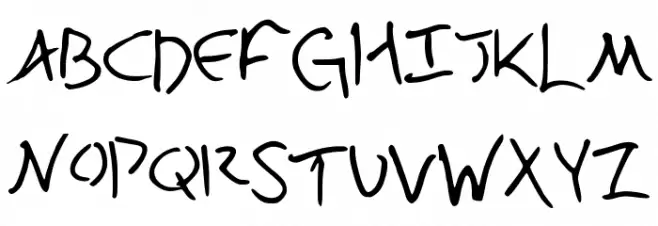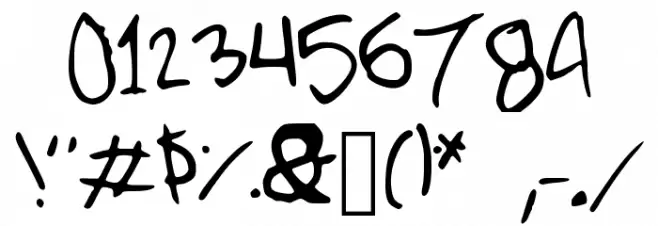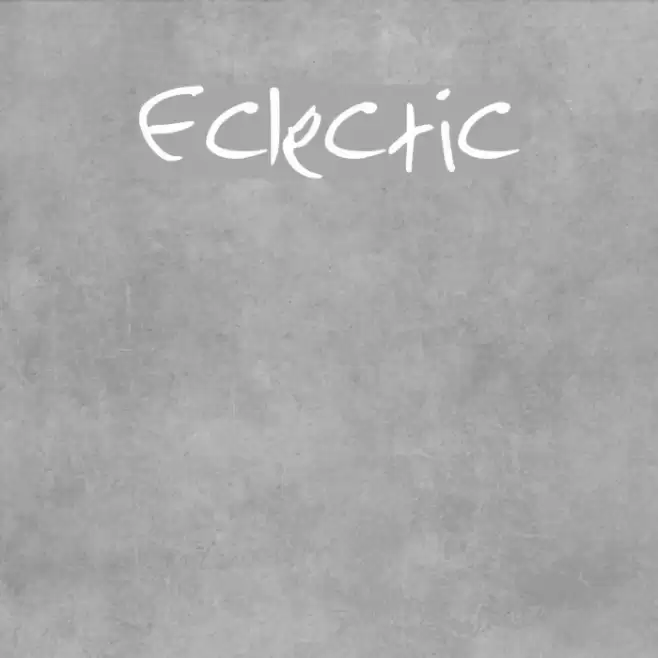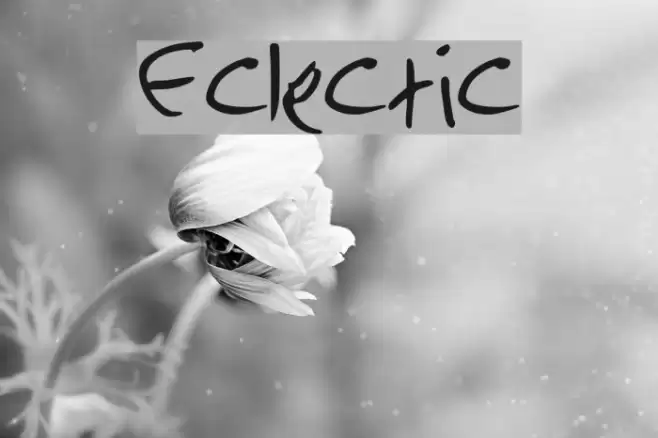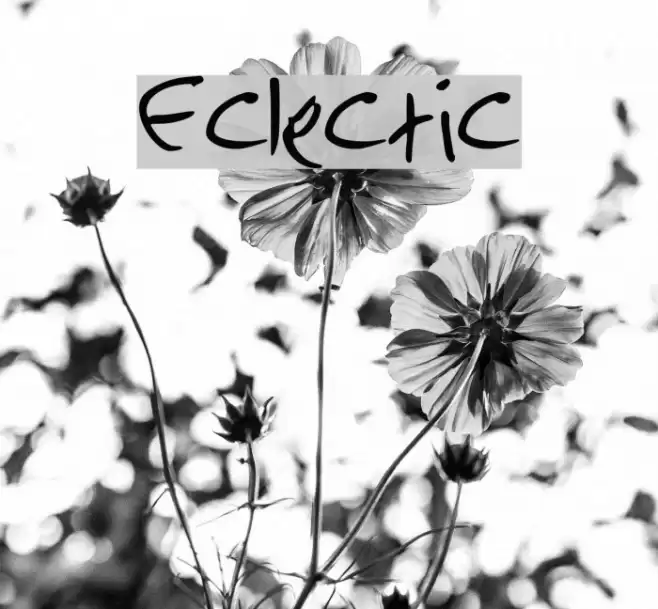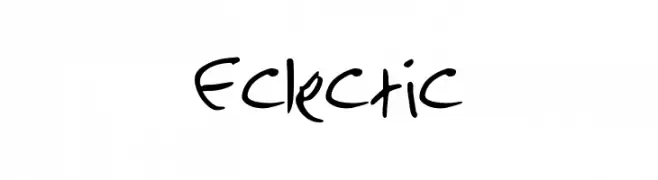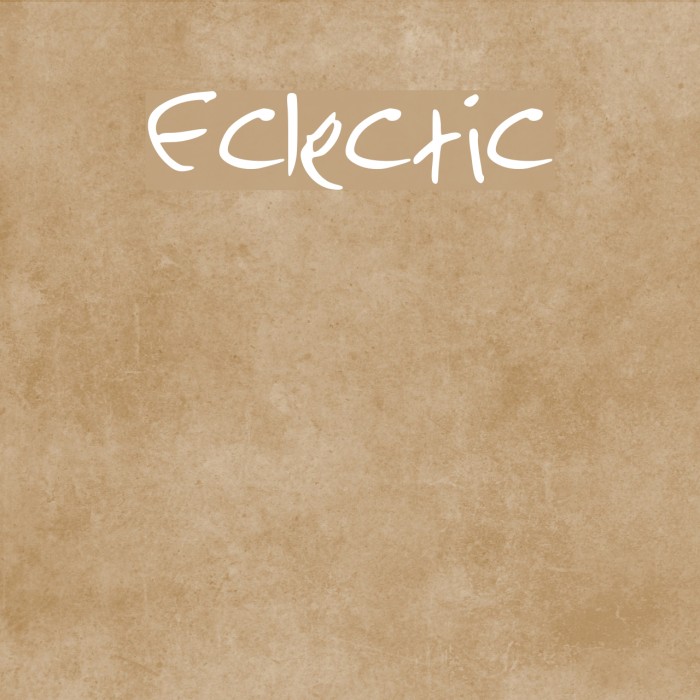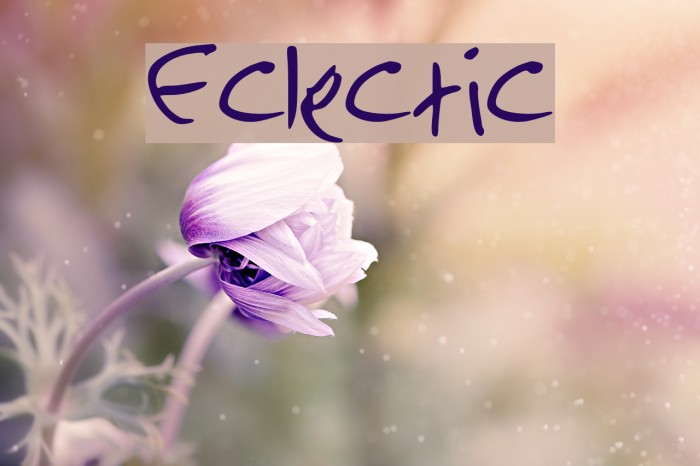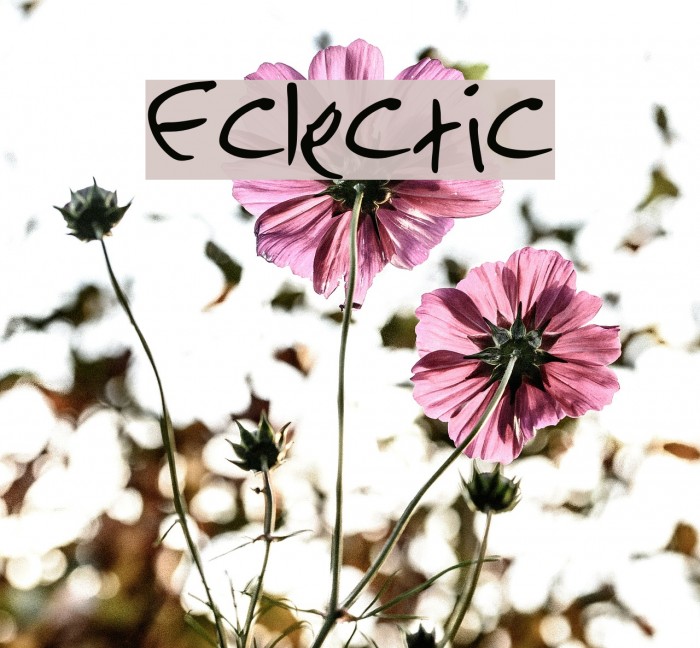
Eclectic
This font presents a unique blend of styles, combining elements of handwritten and decorative design. The uppercase letters feature a playful, eclectic style with varying line thicknesses and whimsical curves, giving each character a distinct personality. The lowercase letters maintain a similar style, with a slightly more relaxed and informal appearance. The numbers are consistent with the overall theme, featuring quirky, uneven strokes that add to the font's charm. Special characters are creatively designed, incorporating elements that enhance the font's artistic flair. This font is perfect for projects that require a touch of creativity and individuality.
A playful, eclectic font with a mix of handwritten and decorative elements.
- Proposed Projects: Ideal for creative projects such as posters, album covers, and artistic branding.
- Overall Style: Eclectic, Artistic
- Use Case: Headlines, Artistic projects, Branding